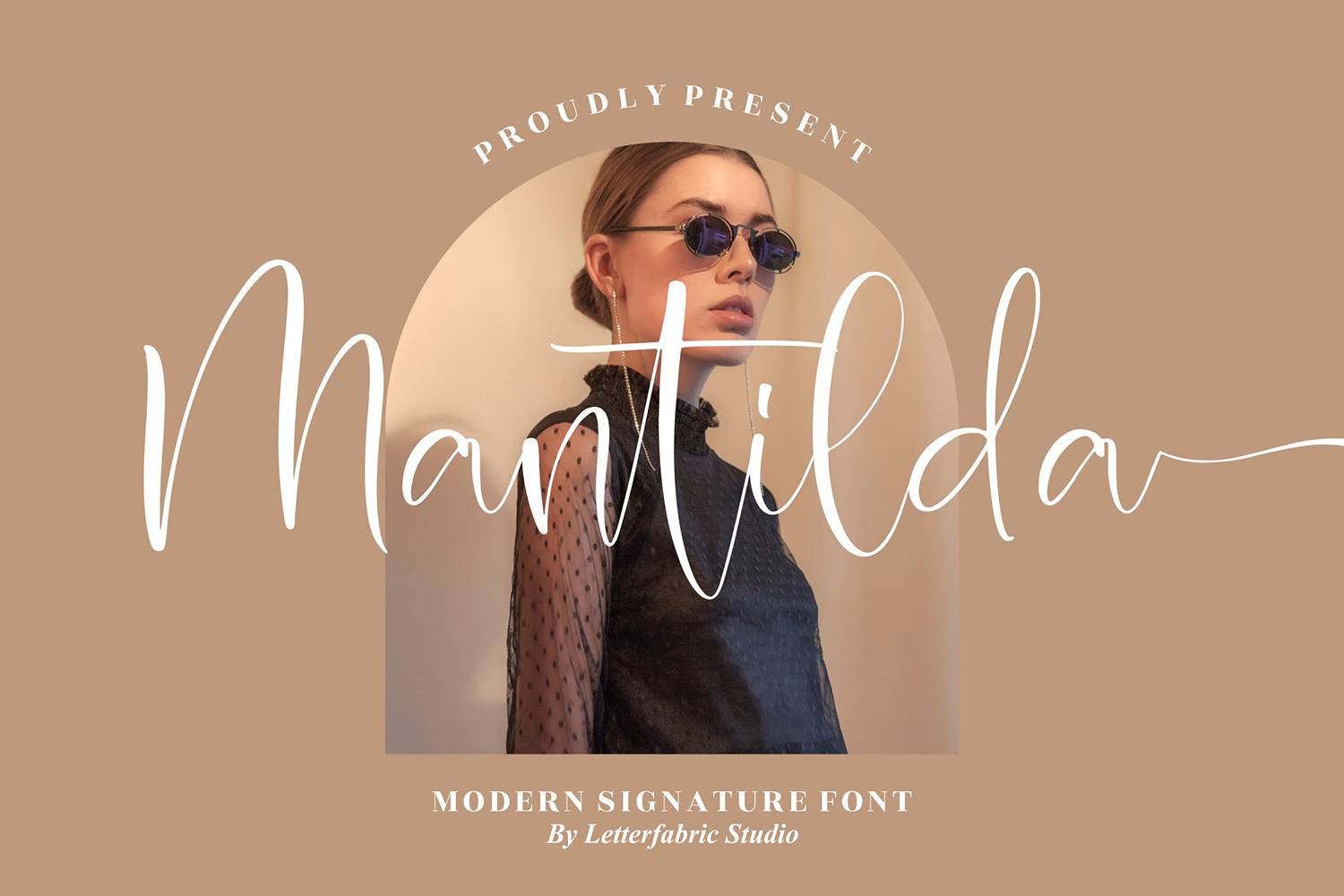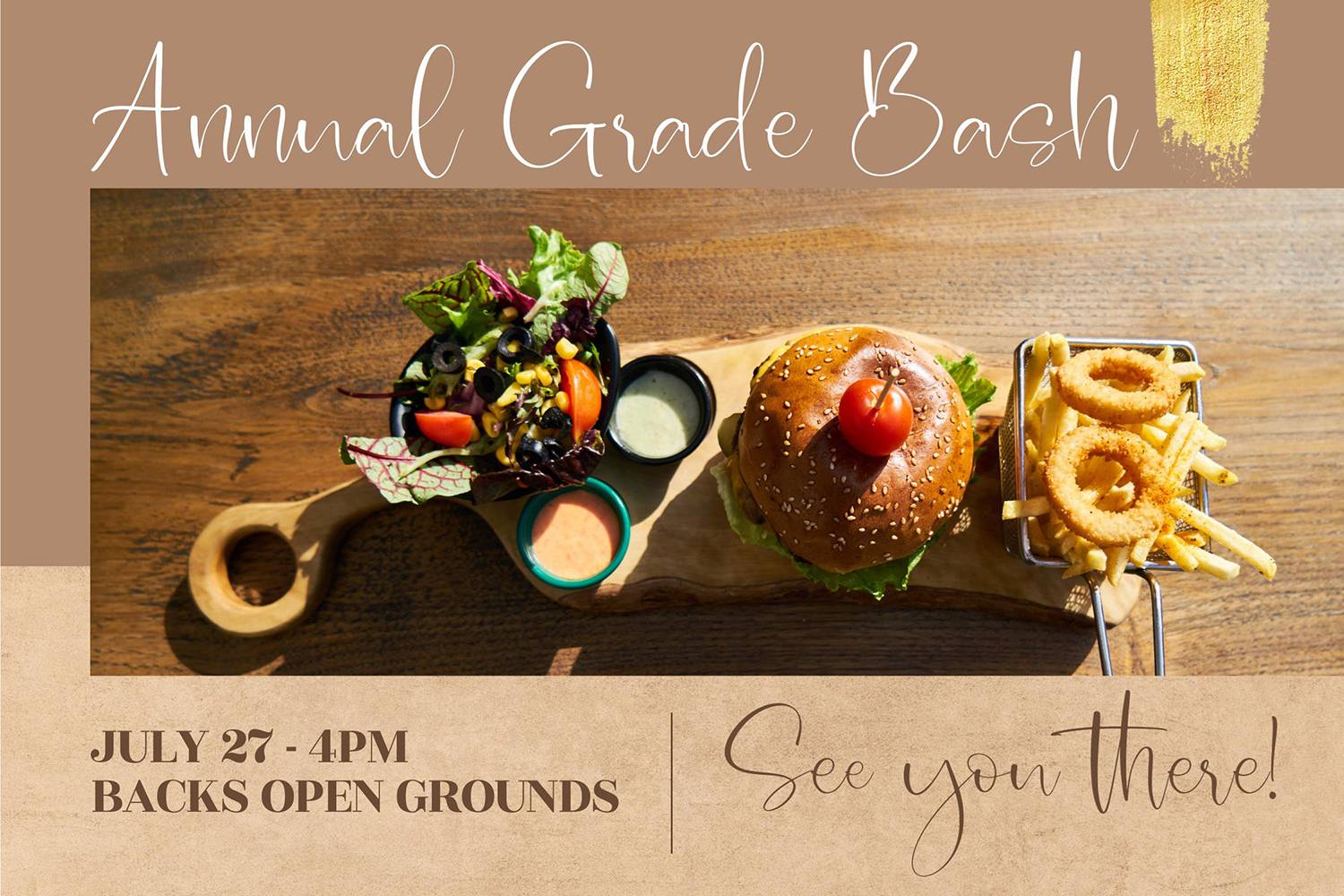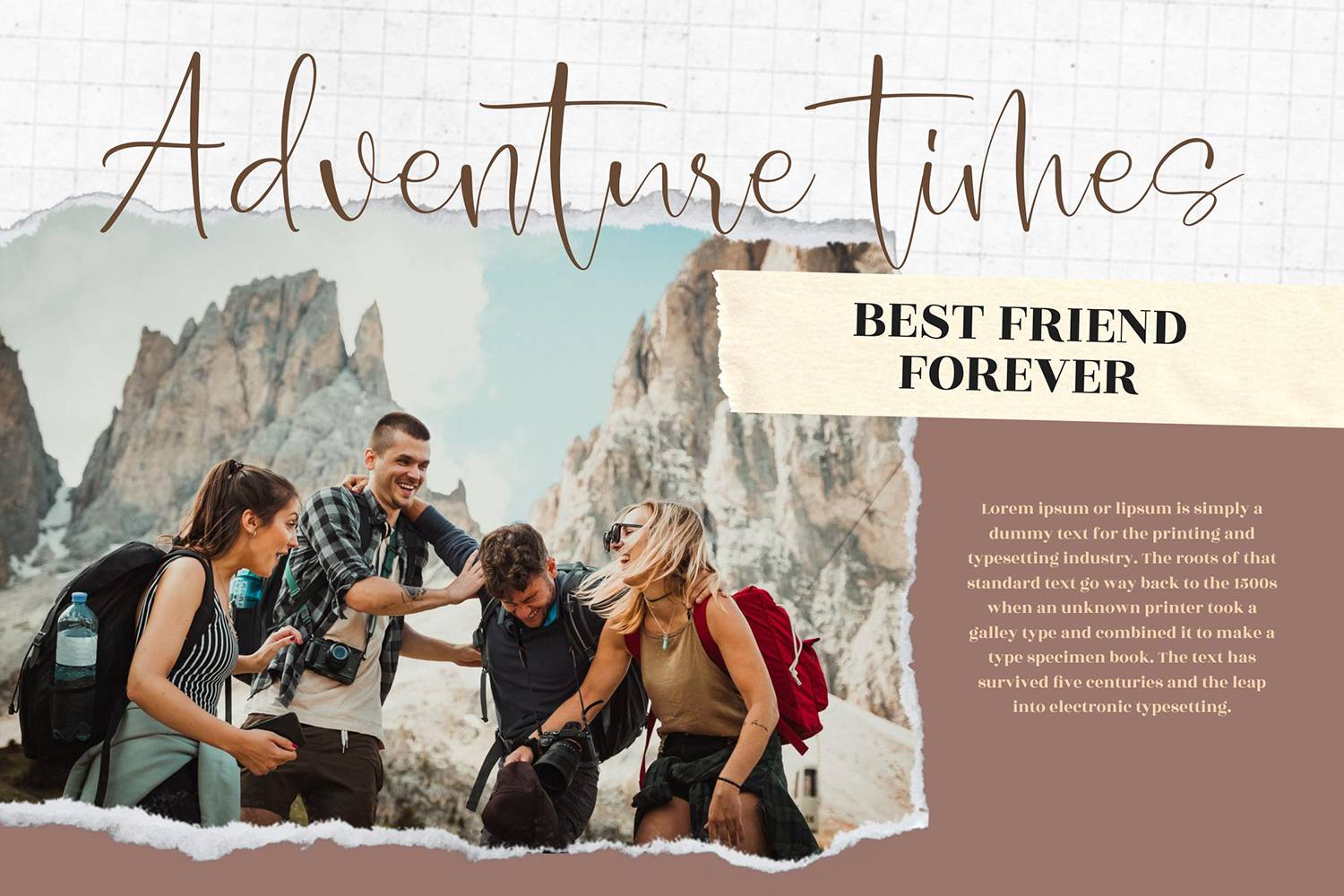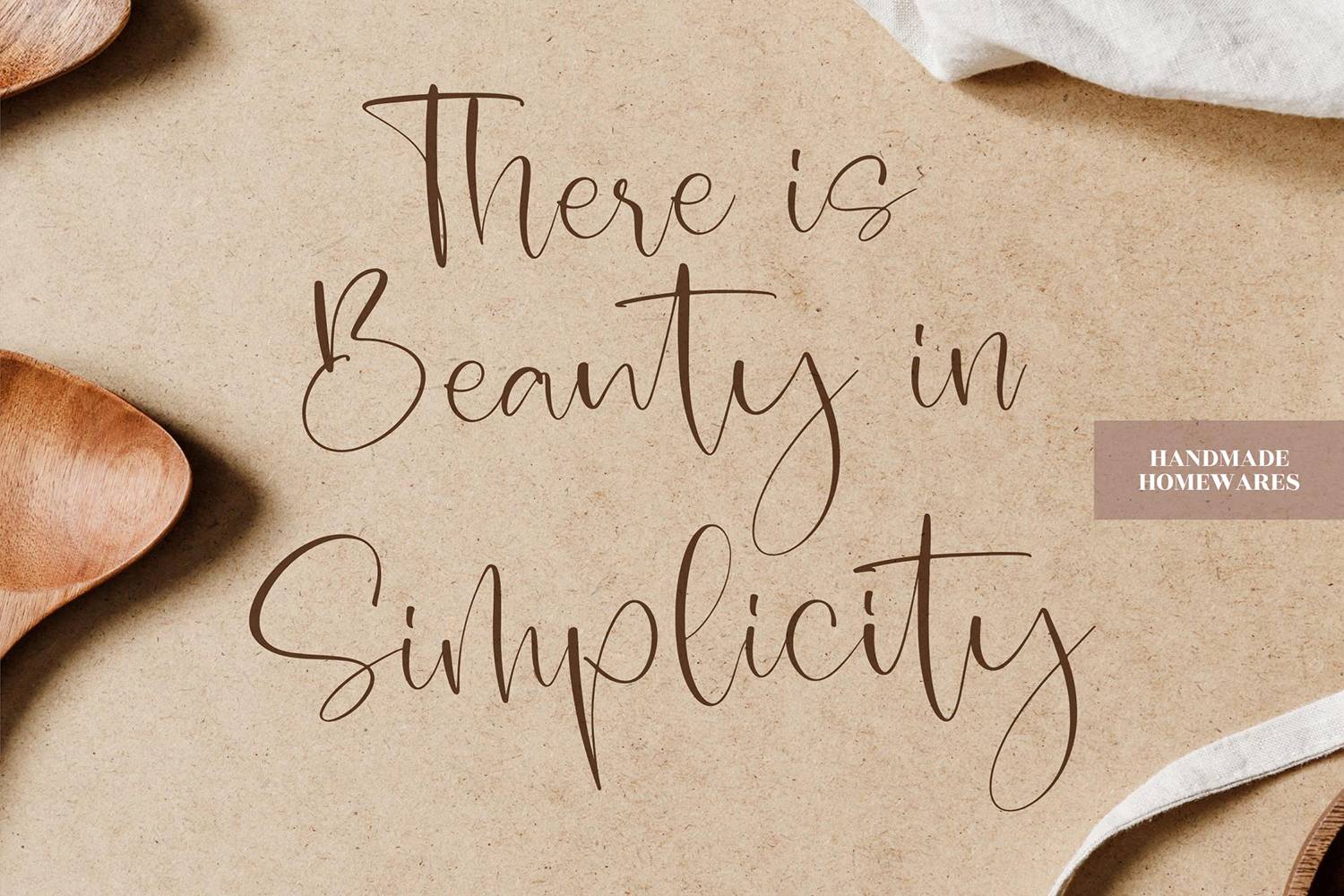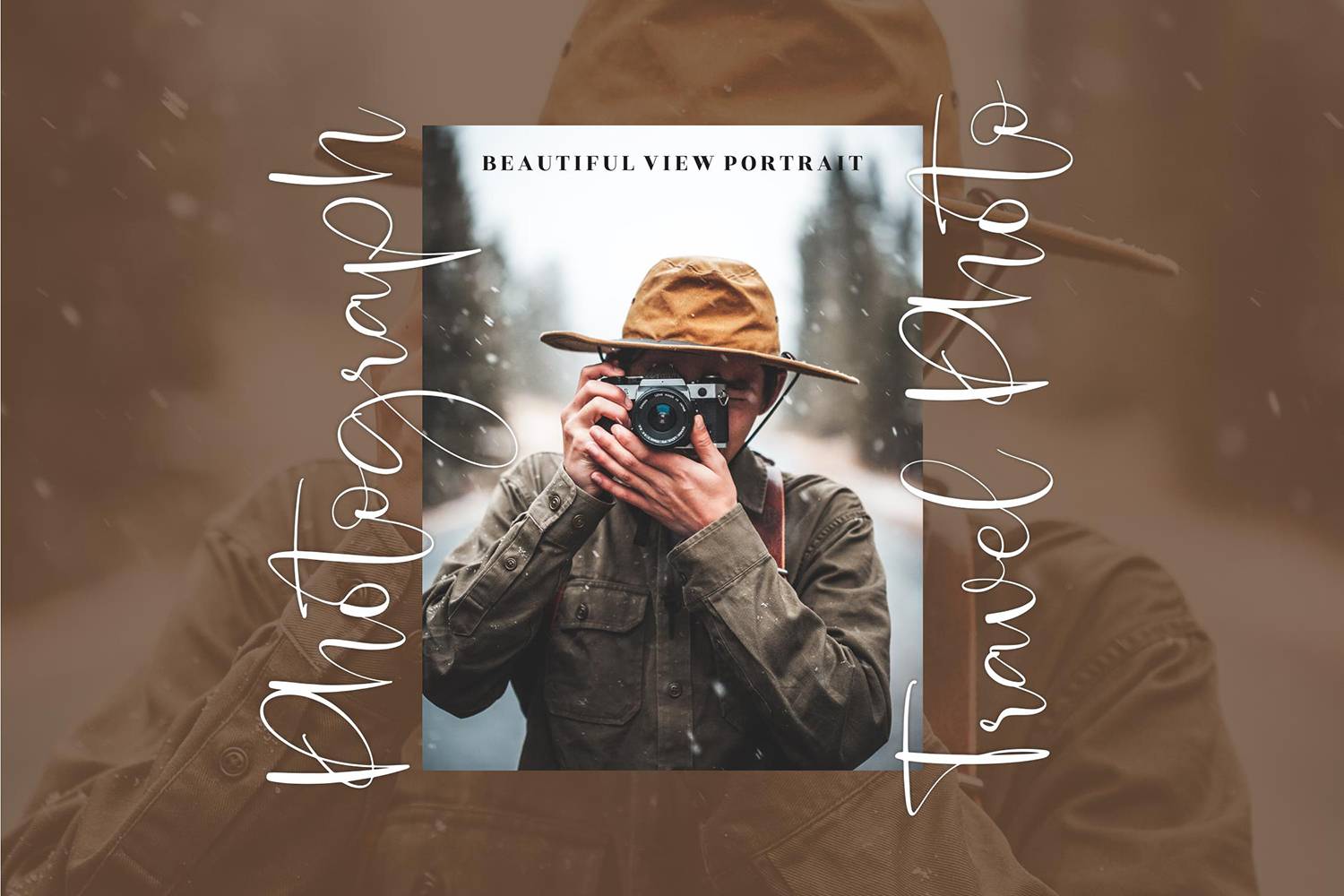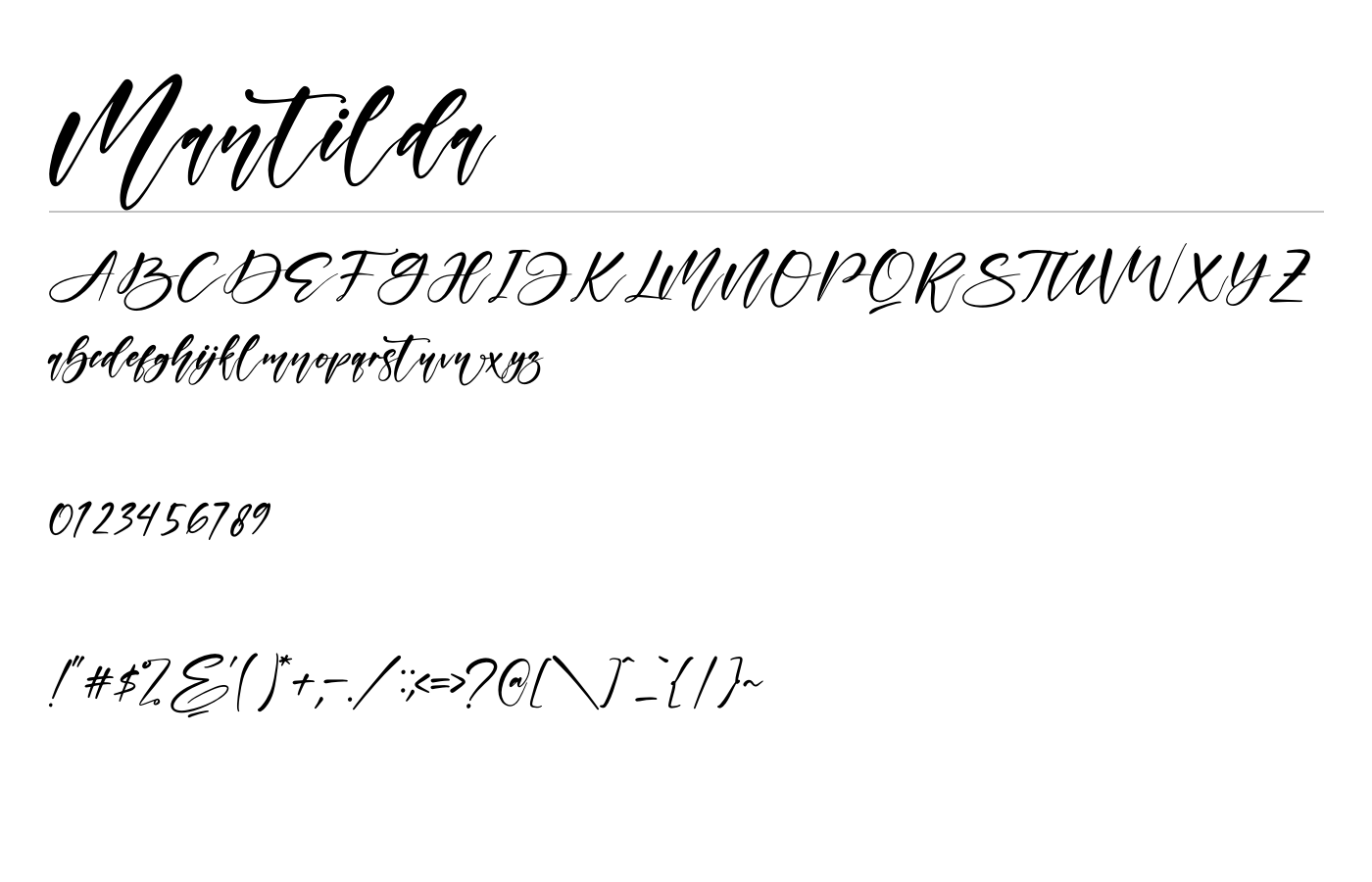
Mantilda is an elegant, flowing script font with a hand-drawn feel, featuring smooth, varied stroke widths and delicate swashes that convey a sense of sophistication and creativity. Its graceful letterforms and casual yet refined style make it perfect for branding, invitations, and fashion-related designs seeking a personal, artistic touch. This font excels in headlines and display use where a stylish, expressive vibe is desired.
Mantilda Font
About Mantilda Font